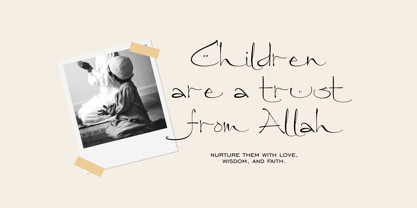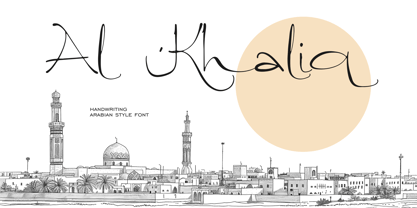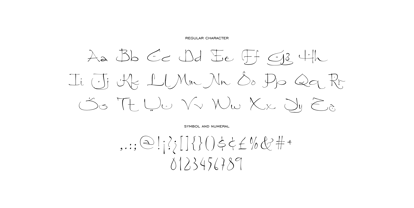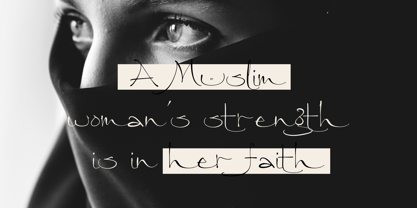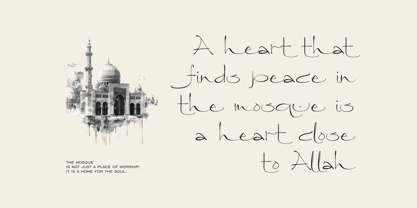
Al Khaliq
von Runsell Type
Die Schriftfamilie Al Khaliq wurde von Satia Hayu Prabowo entworfen und von Runsell Type veröffentlicht. Al Khaliq enthält 1 Stile.
Al Khaliq is a beautiful blend of traditional calligraphy and modern design. This font captures the fluidity and intricate elegance of Arabic writing, with graceful curves and sweeping strokes that evoke a sense of cultural sophistication. Perfect for projects that require an exotic, artistic flair, this font features soft, flowing letterforms that resemble the delicate strokes of hand-drawn Arabic scripts, while still maintaining legibility in a variety of settings. Ideal for branding, invitations, logos, and any design that needs a touch of refined elegance with an Eastern touch. Whether you're crafting a luxurious design or aiming for a unique visual style, this font adds a distinct, cultural aesthetic to your creations.
Designer: Satia Hayu Prabowo
Herausgeber: Runsell Type
Foundry: Runsell Type